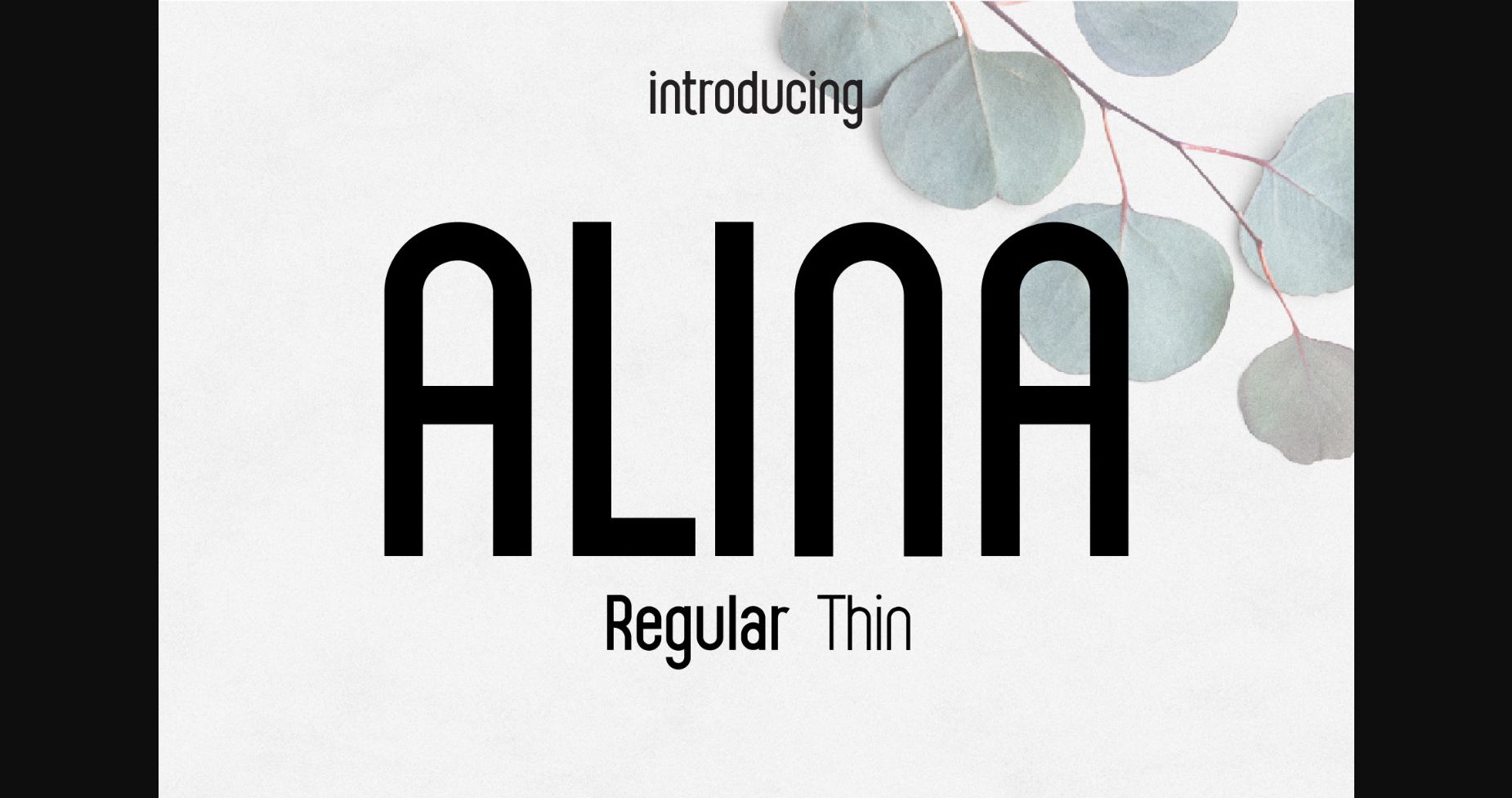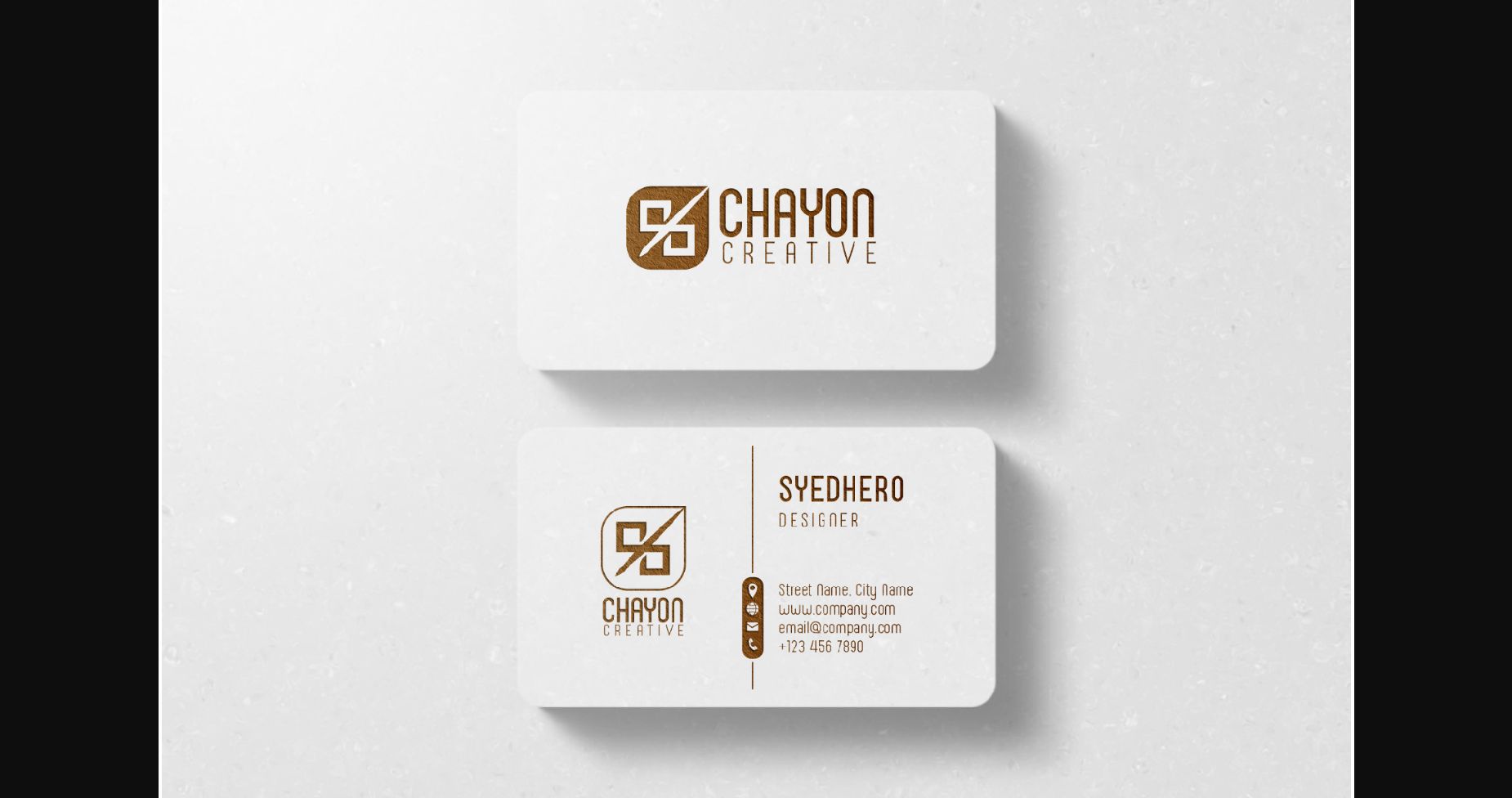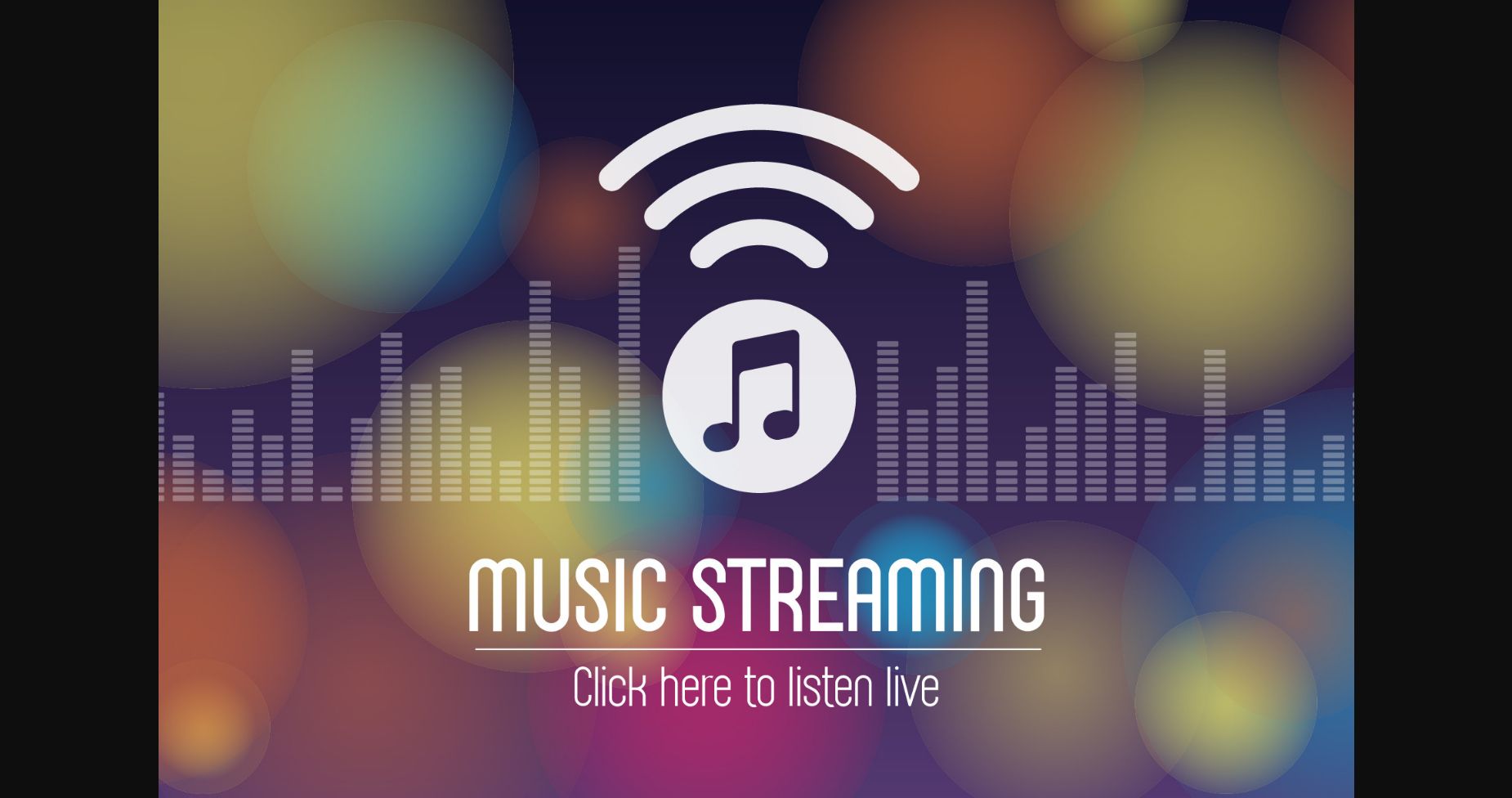
About Alina Font
Alina font is a clean, easy-to-read, and modern sans serif font with two styles and a minimalist vibe. It can be paired with an incredibly large project set. Itβs suitable for branding, logos, packaging, card-making, magazines, films, posters, websites, and more creative ideas. Add it to your fresh ideas and notice how it makes them stand out!